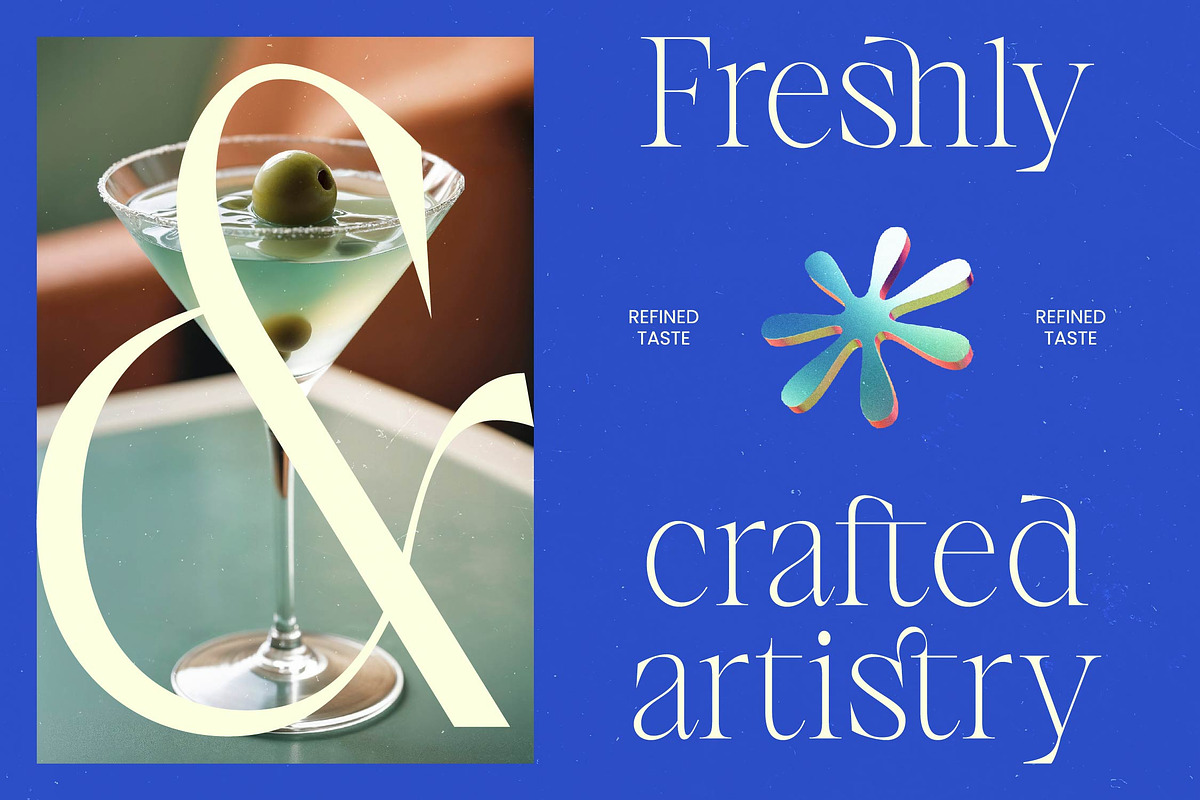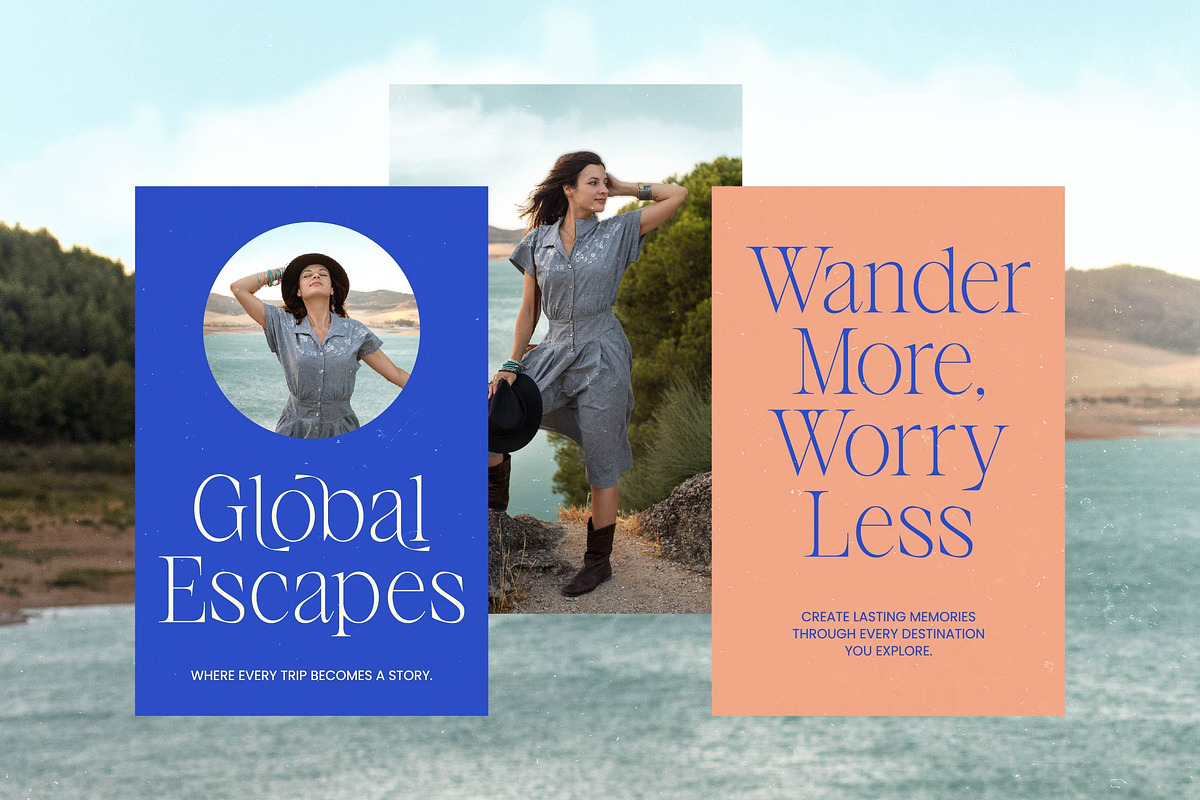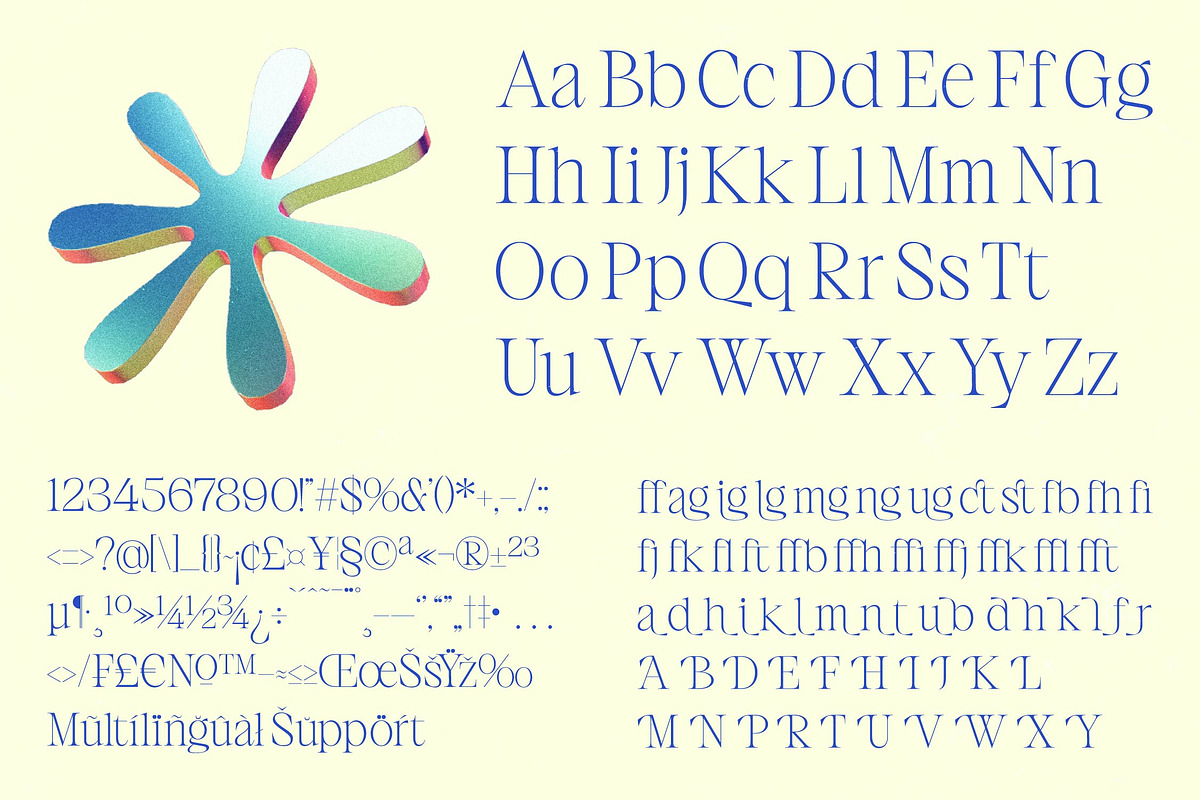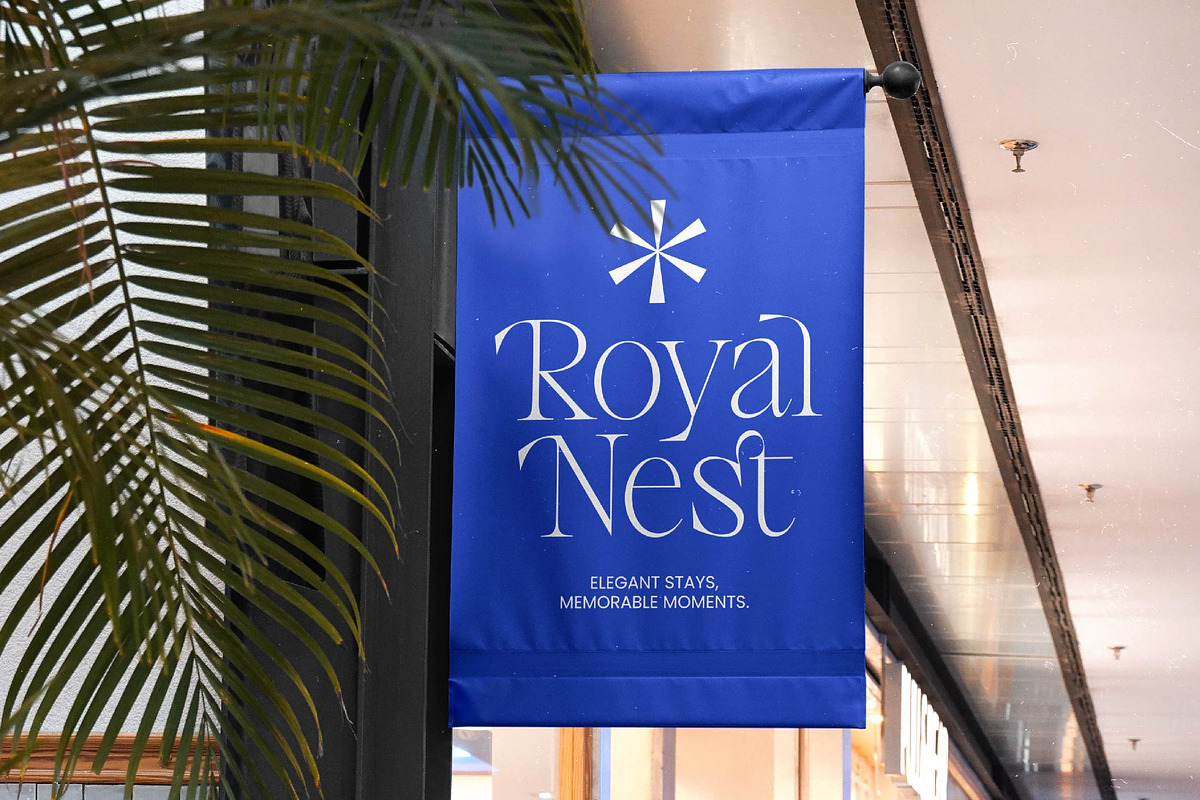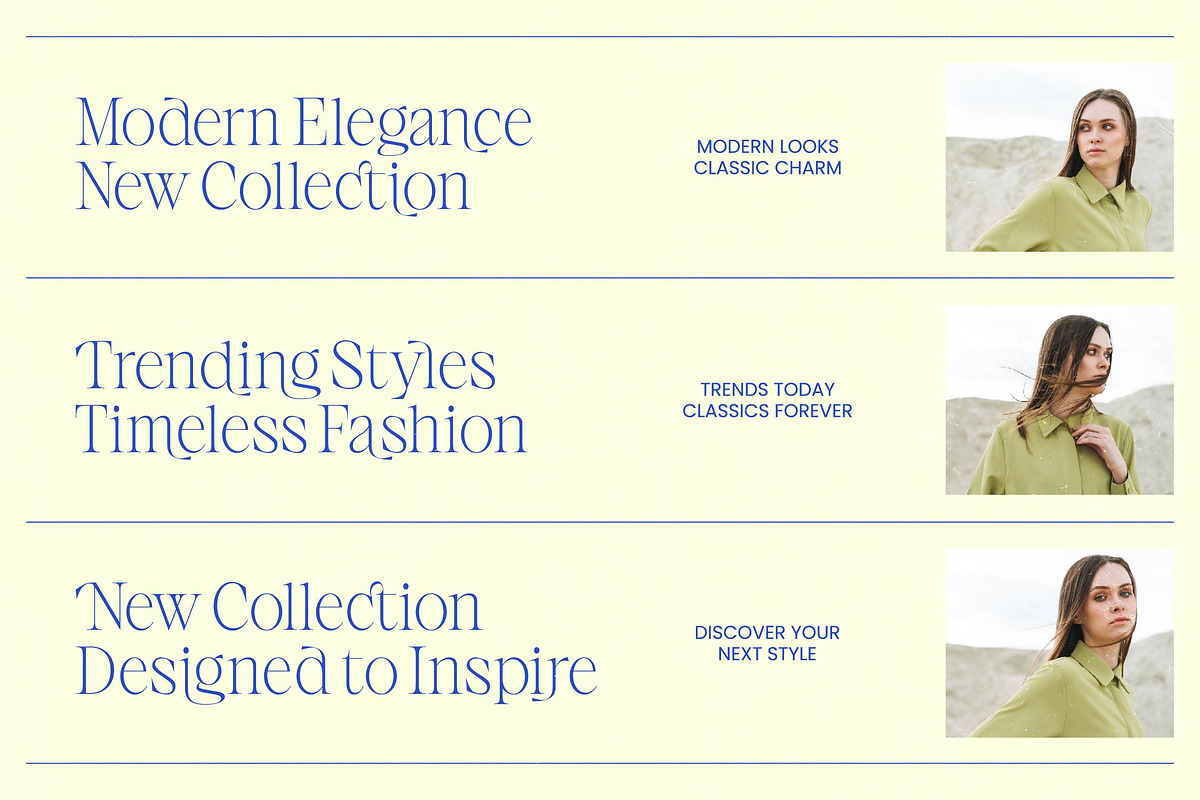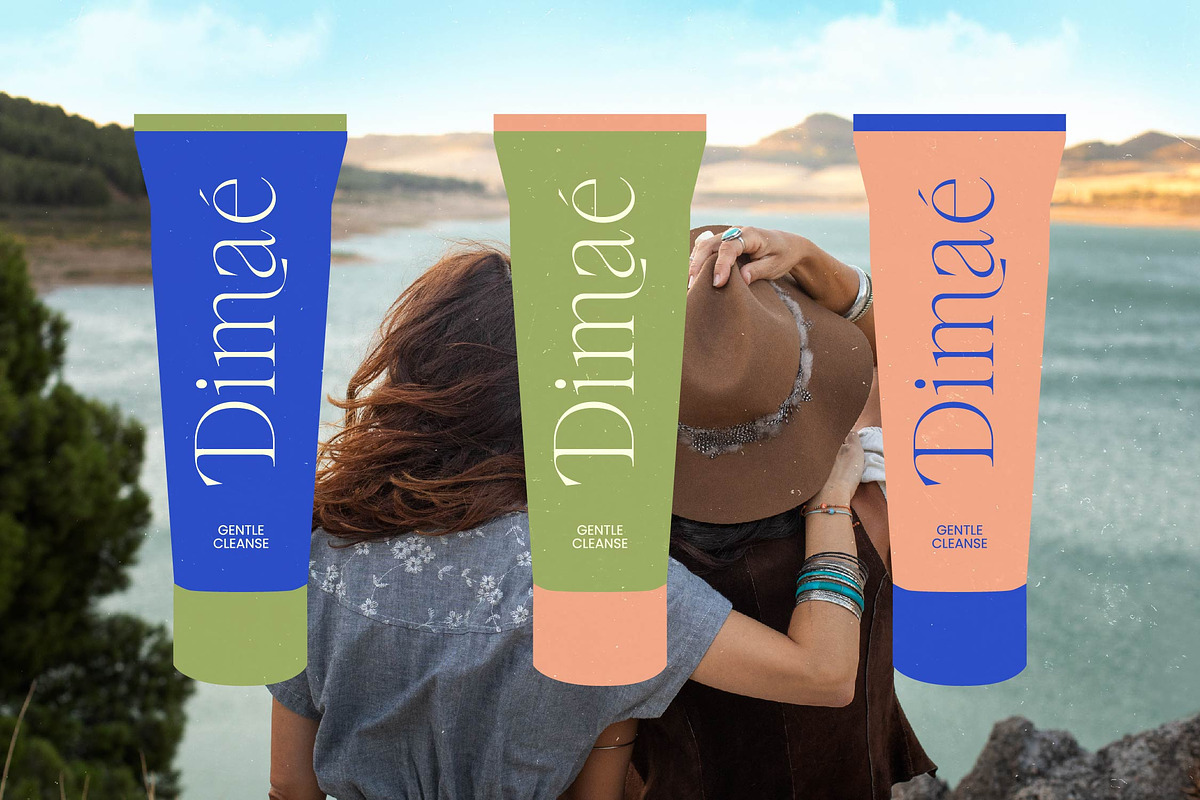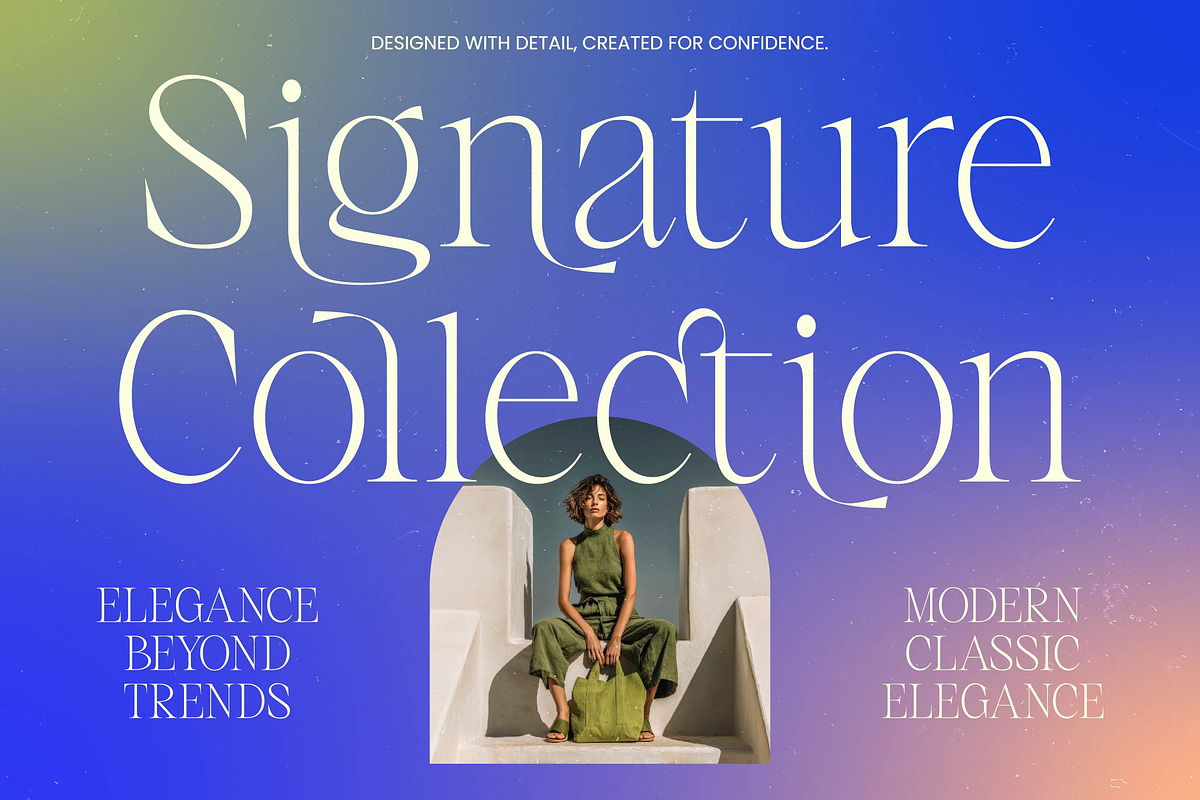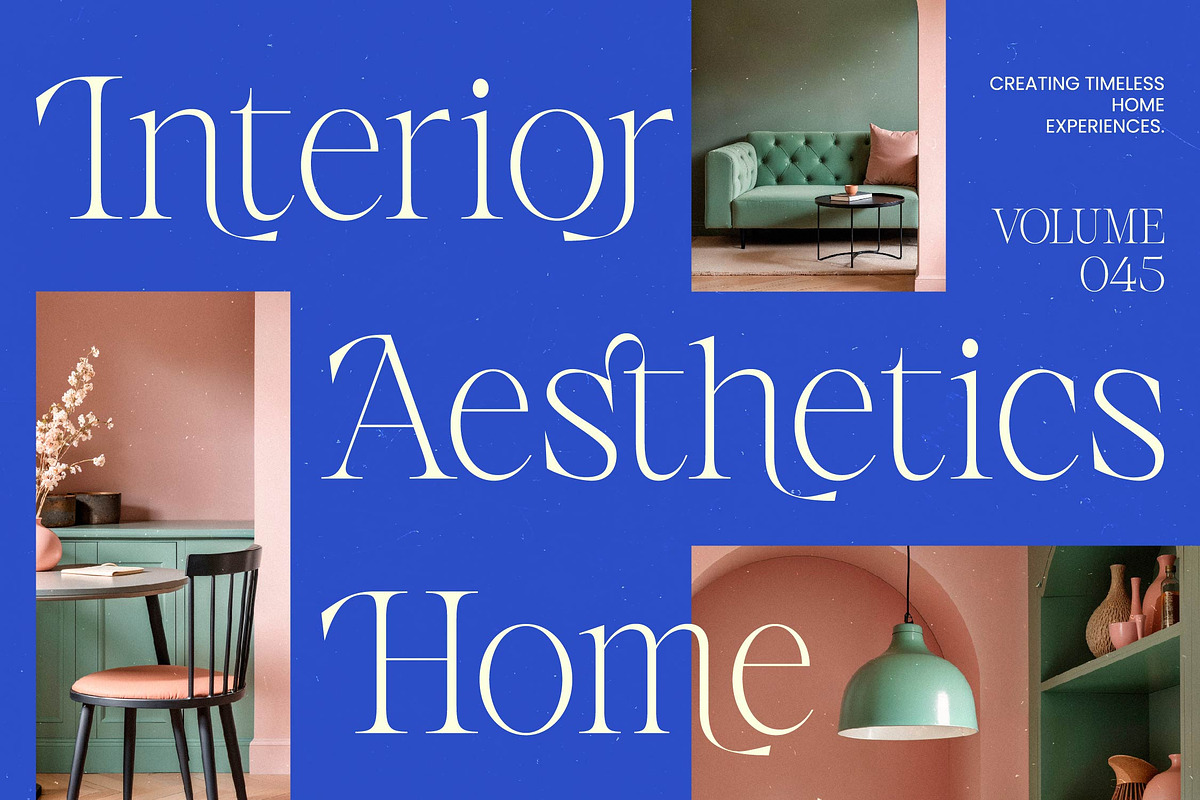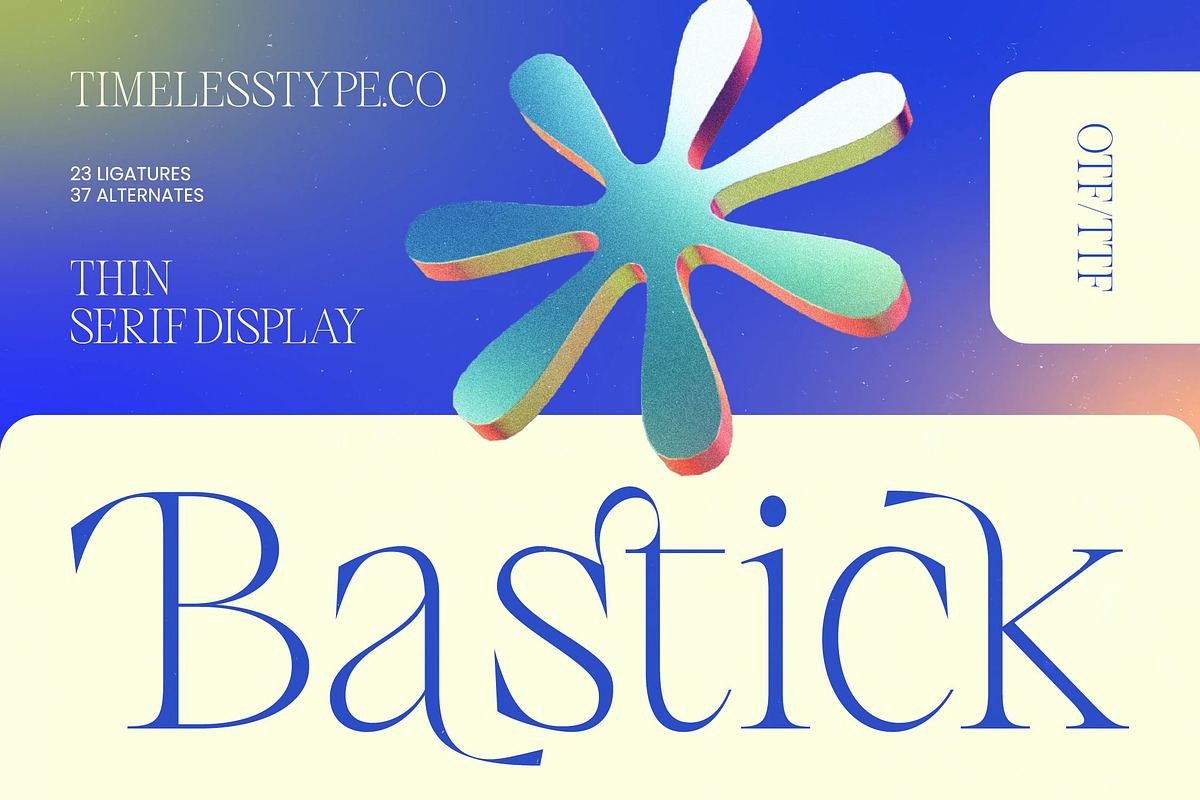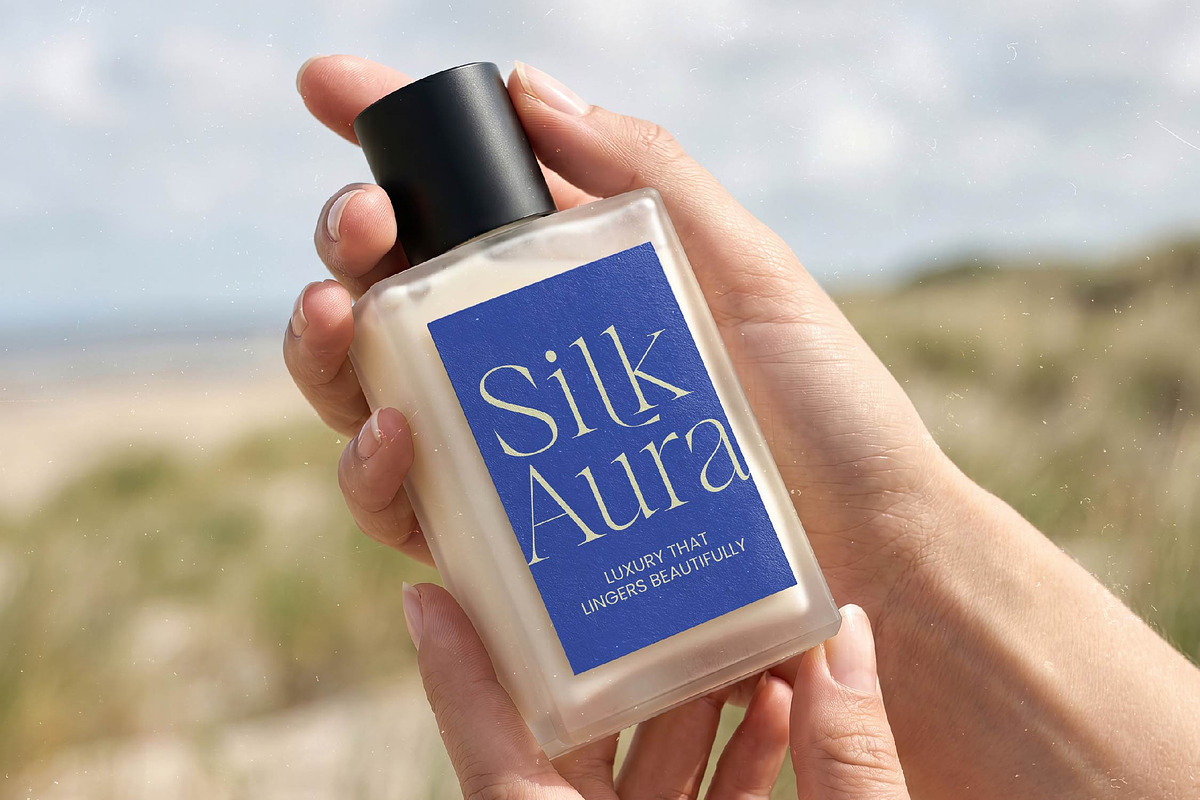
Bastick Thin Serif Display
Bastick - Thin Serif Display , Elevate your visual identity with an unmatched sense of sophisticated elegance. Bastick - Thin Serif Display is a masterpiece of modern typography, blending refined aesthetics with a contemporary edge. This high-contrast serif font is designed for creators who demand artistic precision and a premium feel in every project. Its delicate lines and sharp serifs create a timeless appeal that captures attention instantly, making it a standout choice for high-end creative work.
Unlock limitless creative possibilities through bespoke character variations. The true power of Bastick - Thin Serif Display lies in its extensive set of 23 ligatures and 37 alternates, allowing for custom typographic compositions that feel unique and handcrafted. Whether you are crafting a minimalist logo or a complex layout, these stylistic flourishes ensure your typography remains dynamic and engaging. It is a versatile toolkit for any professional designer seeking to push the boundaries of luxury design.
Expand your brand’s reach with a font designed for international excellence. With its extensive multilingual support, Bastick - Thin Serif Display adapts seamlessly across global markets, making it incredibly versatile for international projects. This global compatibility ensures that your message remains consistent and impactful regardless of the language, providing a cohesive brand voice for multinational campaigns. Investing in Bastick - Thin Serif Display means securing a high-quality asset that performs brilliantly on a global stage.
Transform your concepts into high-end reality across diverse media platforms. Bastick - Thin Serif Display is perfectly suited for luxury branding, editorial design, fashion packaging, and high-fashion magazines. It excels in large-scale displays, sophisticated wedding invitations, and modern digital storefronts where an exclusive aesthetic is paramount. Choosing Bastick - Thin Serif Display ensures your project radiates prestige and professionalism, making it the ultimate typographic solution for premium visual storytelling.